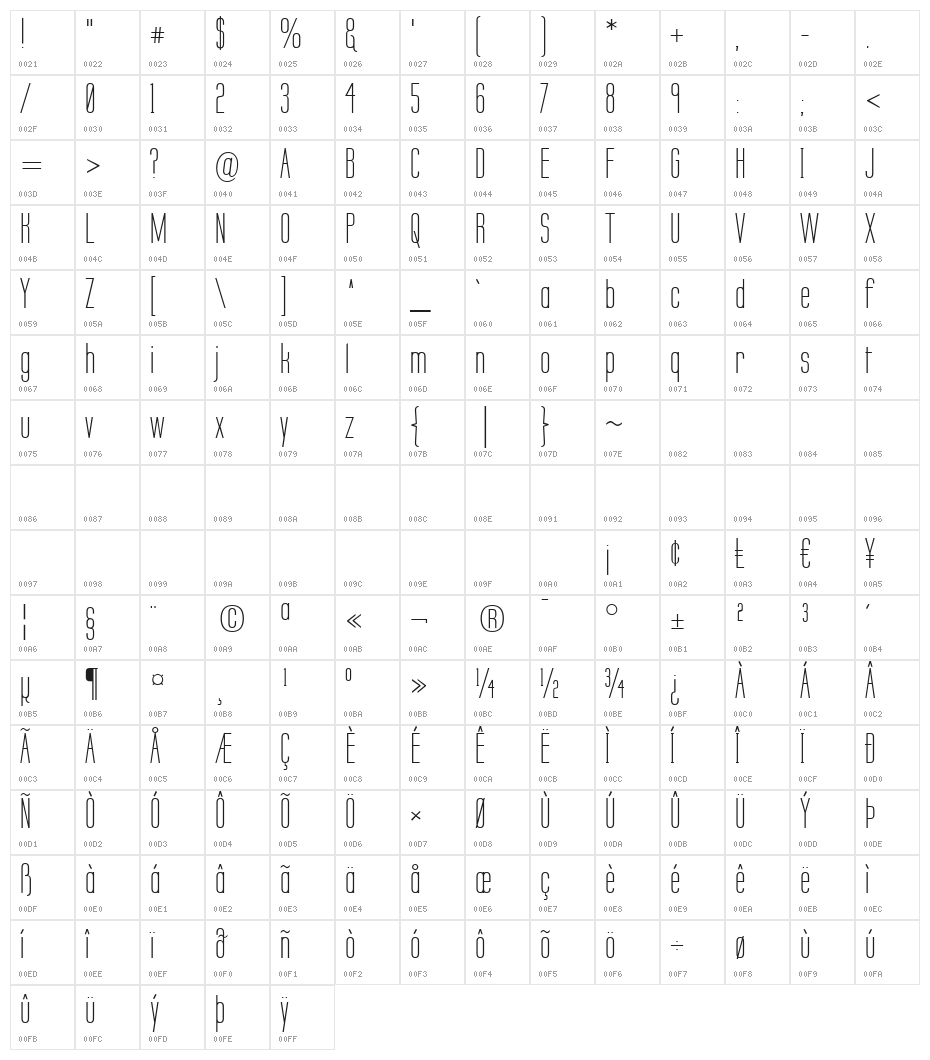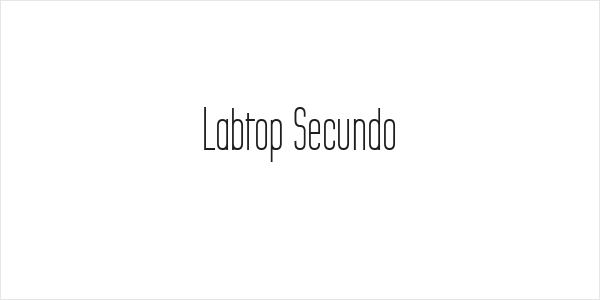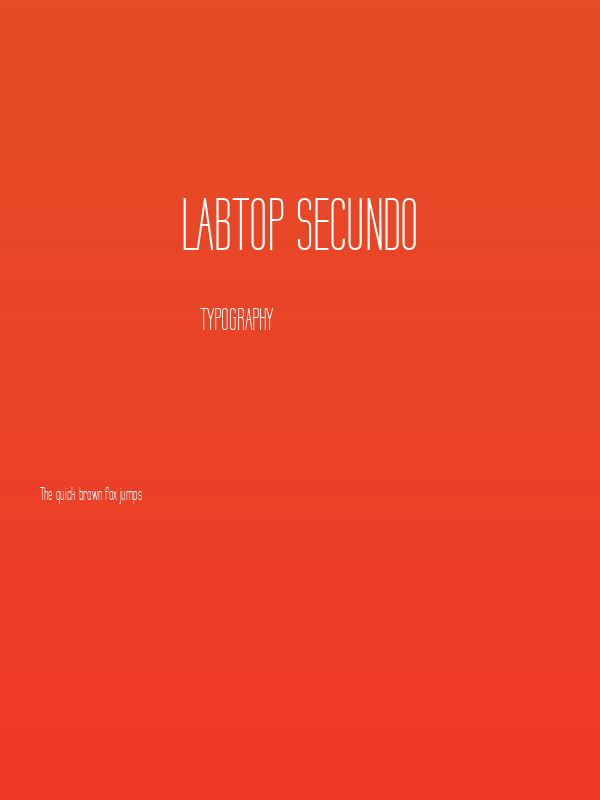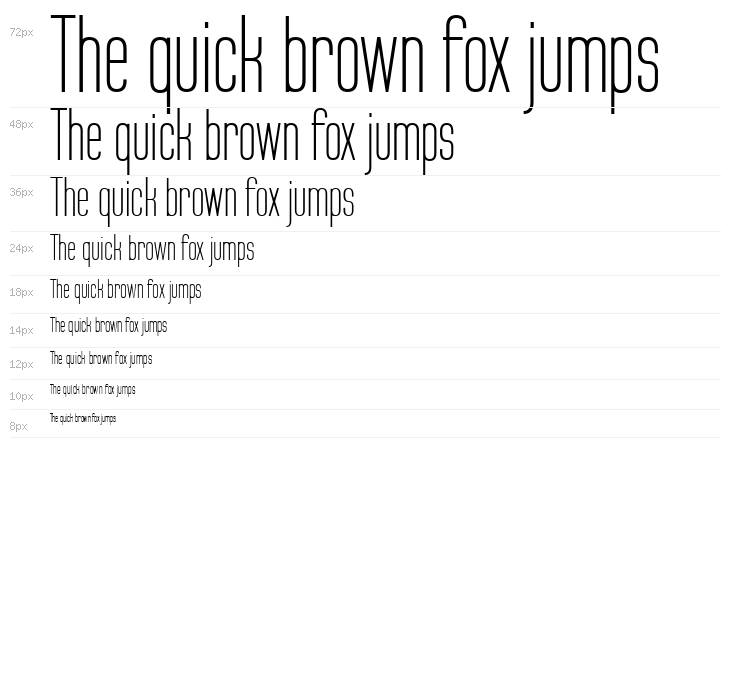
Labtop Secundo Font
Labtop Secundo Description
This font features a tall, narrow design with clean, straight lines and minimal curves, giving it a modern and sleek appearance. The uppercase and lowercase letters maintain a consistent height, contributing to a uniform look. The numerals and special characters follow the same design principles, ensuring cohesion across all characters. The font's thin strokes and high line height create an airy feel, making it suitable for projects that require a contemporary and elegant touch. Its simplicity and clarity make it ideal for use in digital and print media where readability is key.
| Proposed Projects | Ideal for fashion magazines, modern branding, minimalist posters, and digital interfaces. |